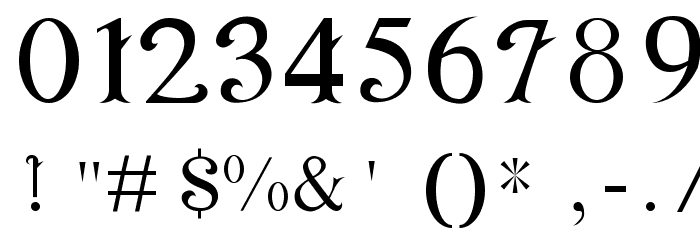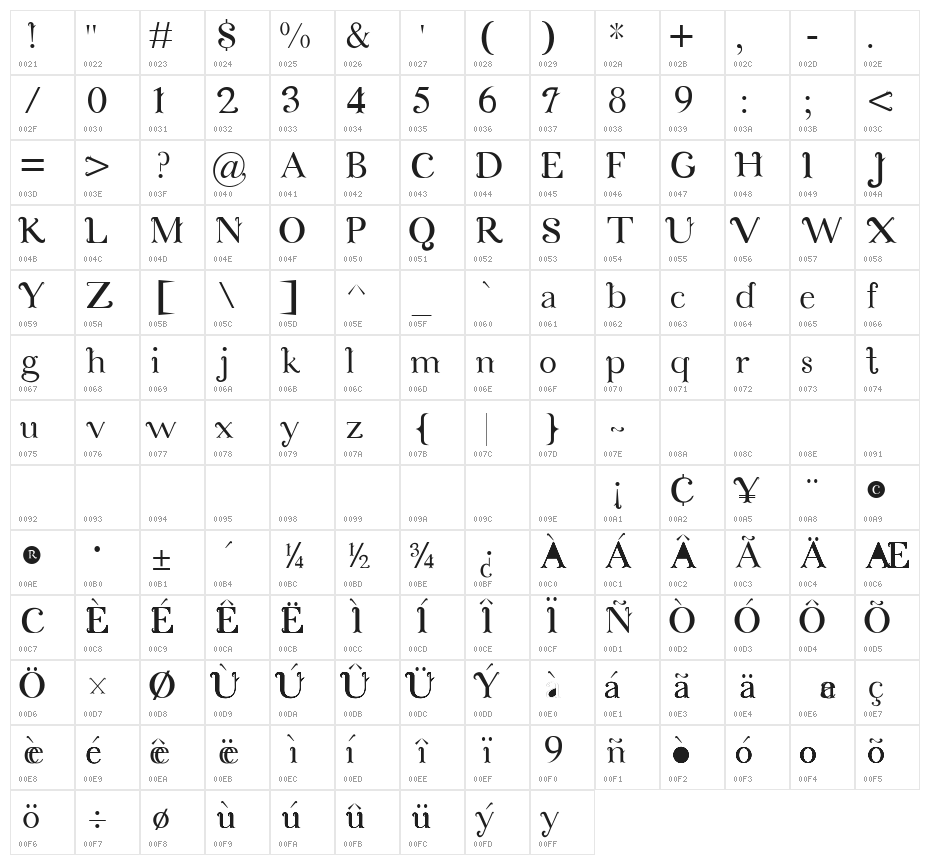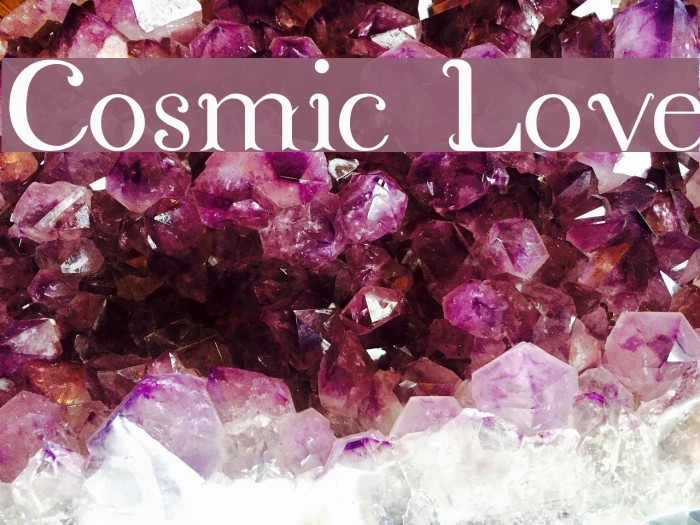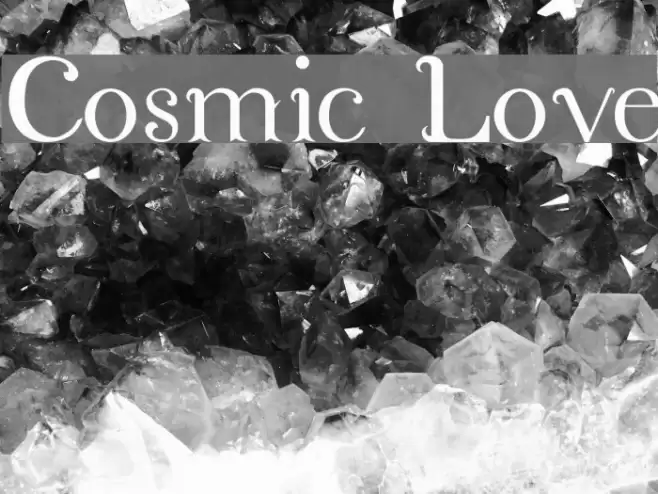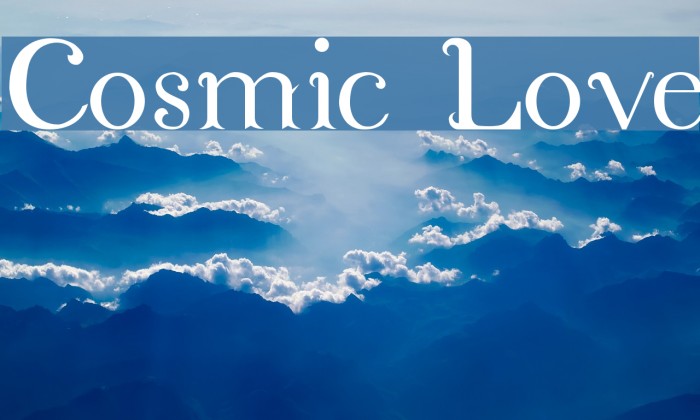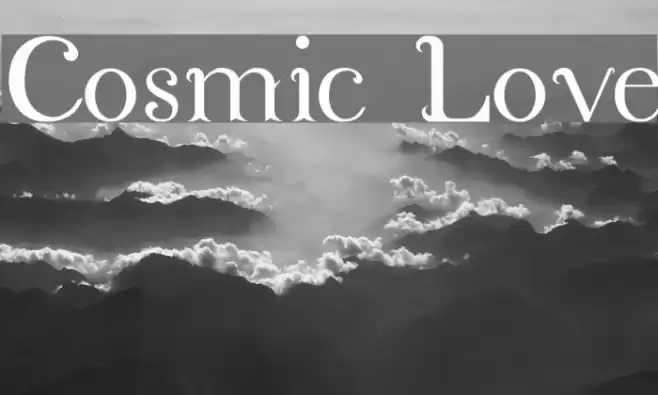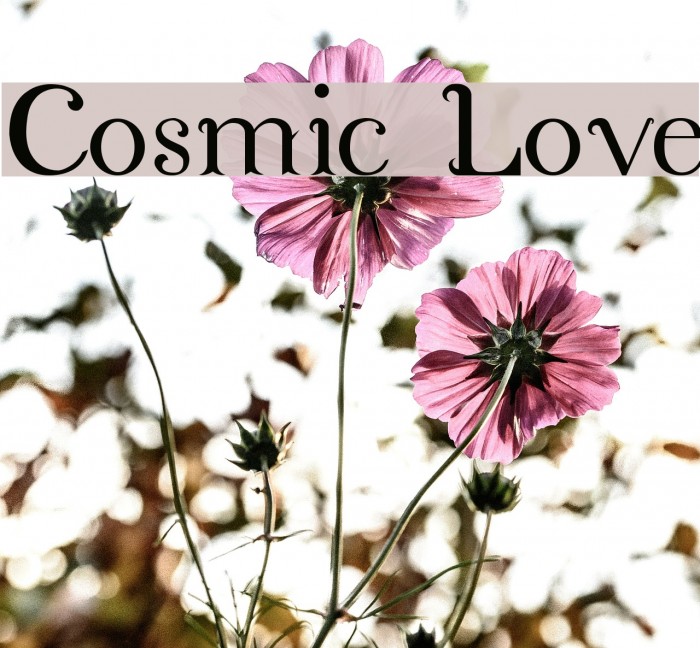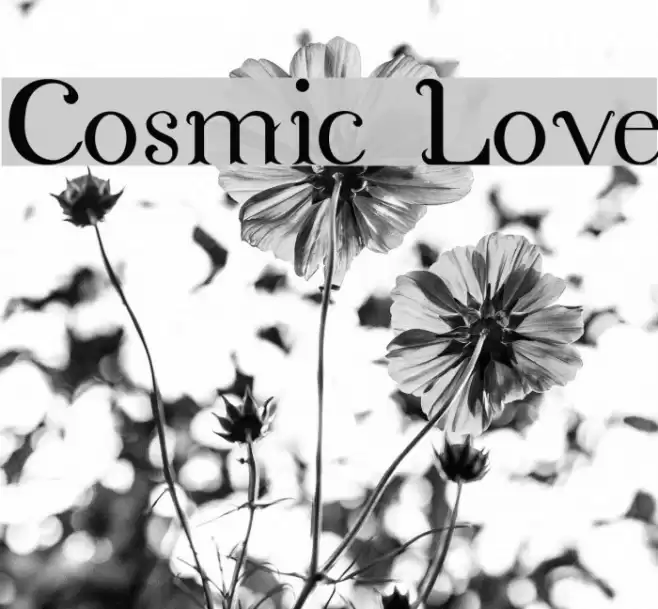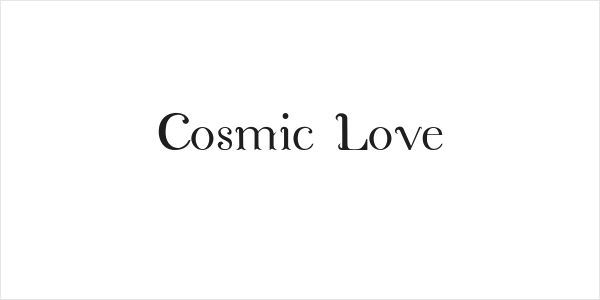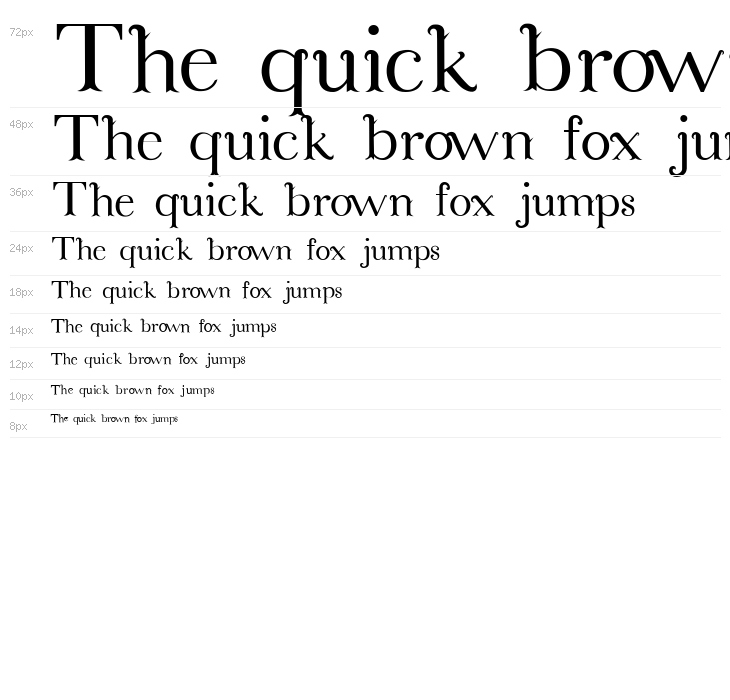
Cosmic Love Font
Cosmic Love Description
This font features a unique blend of classic and modern elements, characterized by its elegant serifs and subtle curves. The uppercase letters are bold and commanding, with a slight flourish that adds a touch of sophistication. The lowercase letters maintain a consistent style, offering a harmonious balance between readability and decorative flair. Numbers are clear and distinct, with a slight curvature that complements the overall design. Special characters are thoughtfully designed, ensuring they integrate seamlessly with the rest of the typeface. This font's versatility makes it suitable for a wide range of applications, from formal invitations to branding projects.